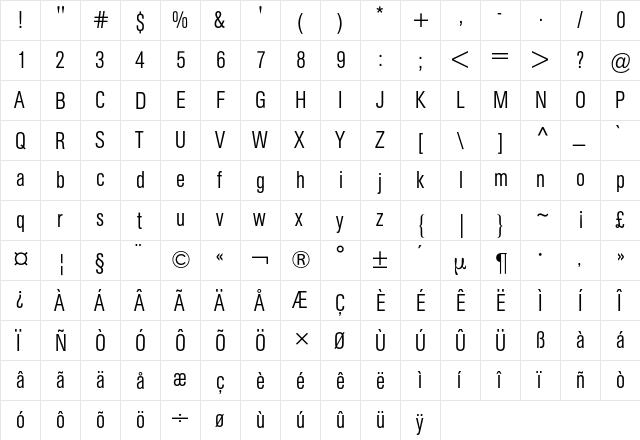
AG Buch Condensed BQ Regular Font Preview
AG Buch Condensed BQ Regular
Design Context for AG Buch Condensed BQ Typeface
AG Buch Condensed BQ takes a measured approach to typography — its balanced proportions and neutral character make it a reliable workhorse for both digital and print work. The condensed width makes it efficient for tight spaces without sacrificing legibility.